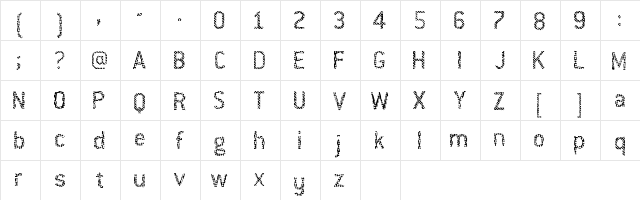
Halftone Regular Font Preview
Halftone Regular
Design Context for Halftone Typeface
Halftone takes a measured approach to typography — its balanced proportions and neutral character make it a reliable workhorse for both digital and print work.